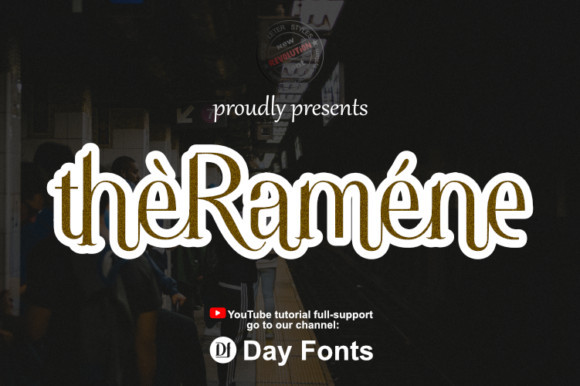
Theramene Font
Theramene is an elegant and distinct looking serif font. It is a great choice for magazine covers, book titles, apparel, product packaging, and a variety of other designs.